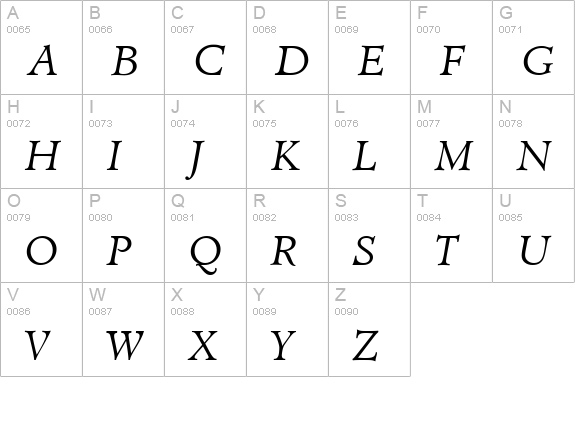
Cleric Light SSi Light Italic Font Details
Cleric Light SSi Light Italic is a refined, elegant, italic variant in the Cleric typeface family \xE2\x80\x94 well suited to elegant body text, refined sub-headings, and luxury branding.
Cleric Light SSi Light Italic font is a beautifully crafted typeface that exudes elegance and sophistication. Its delicate and flowing curves create a sense of grace and refinement, making it a perfect choice for projects that require a touch of class. The light italic style adds a subtle touch of flair, making it ideal for adding a touch of sophistication to any design. What sets Cleric Light SSi Light Italic font apart is that it is available for free download at FontsMarket.com. This means you can easily access this stunning font without any cost, making it a valuable addition to your font library. Whether you're working on a branding project, a wedding invitation, or any other design that requires a touch of elegance, Cleric Light SSi Light Italic font is sure to elevate your work to the next level. Download it today and add a touch of sophistication to your designs!